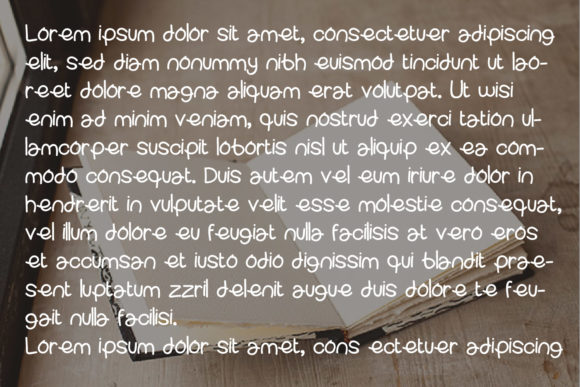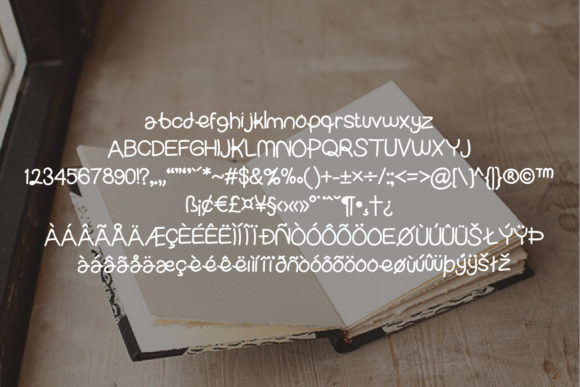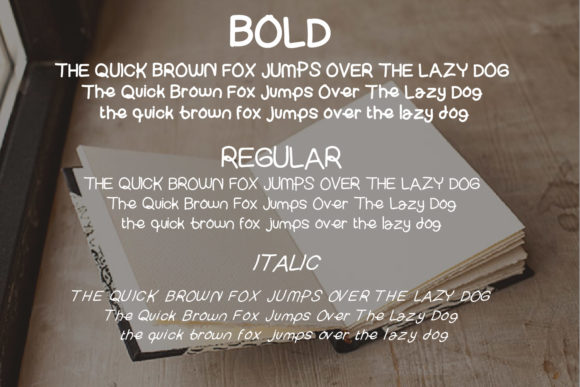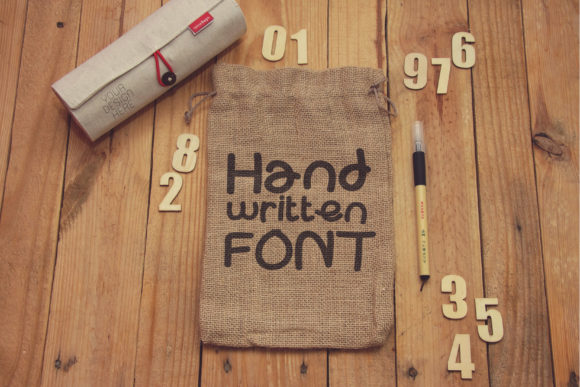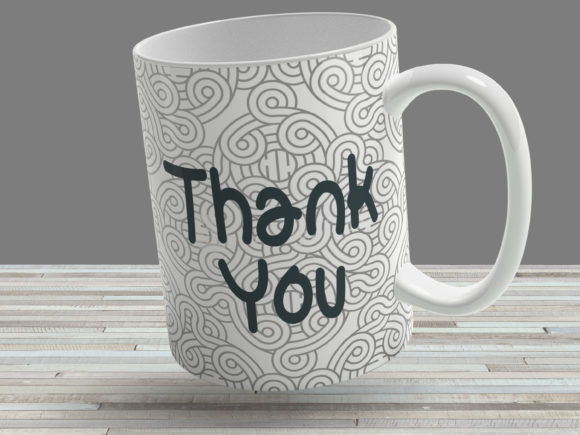
Introduction to Nyatet Font
Have you ever been working on a creative project, and the perfect font just slips through your fingers? You envision a whimsical, handwritten style that perfectly captures the essence of your design, but you can’t quite find it. That’s where the Nyatet Font comes in – a sweet and friendly handwritten font that’s sure to bring your design to life.
With its natural and unique style, the Nyatet Font is an incredibly versatile design resource that can elevate any project. Whether you’re working on a branding campaign, a social media post, or a simple greeting card, this font is sure to add a touch of warmth and personality. And the best part? It’s available for free download, complete with a transparent background for seamless integration into your design.
Key Features of Nyatet Font
- Unique and creative design suitable for various creative projects, including logos, branding, and digital art.
- Designed to be highly legible and versatile, with a unique aesthetic that sets it apart from other fonts.
- Perfect for designers and artists looking for a free, high-quality font that can add a touch of creativity to their projects.
Honest Review: Nyatet Font
I recently stumbled upon the Nyatet Font while searching for a unique design resource for a creative project. I must say, I was pleasantly surprised by the high quality of this free download.
- ✨ The Nyatet Font features a clean and modern design, perfect for any project that requires a sleek and sophisticated look.
While the Nyatet Font is a great design resource, there are a few limitations to keep in mind. For example:
- ⚠️ The font may not be suitable for projects that require a lot of bold or dramatic typography.
Overall, I’m impressed with the Nyatet Font and would definitely consider using it for future creative projects. The high quality design and range of styles make it a great addition to any designer’s toolkit.
Introduction to Nyatet Font
Nyatet Font is a high-quality design resource ideal for creative projects. It offers a unique and stylish aesthetic that can elevate your work.
To get the most out of Nyatet Font, use it in combination with a transparent background to create a clean and modern design. You can also experiment with different font sizes, colors, and styles to achieve a unique look.
Common Use Cases for Nyatet Font
Nyatet Font is ideal for a variety of creative projects, including logos, brochures, business cards, and social media graphics. Its high-quality design and transparent background make it a versatile resource for designers and non-designers alike.